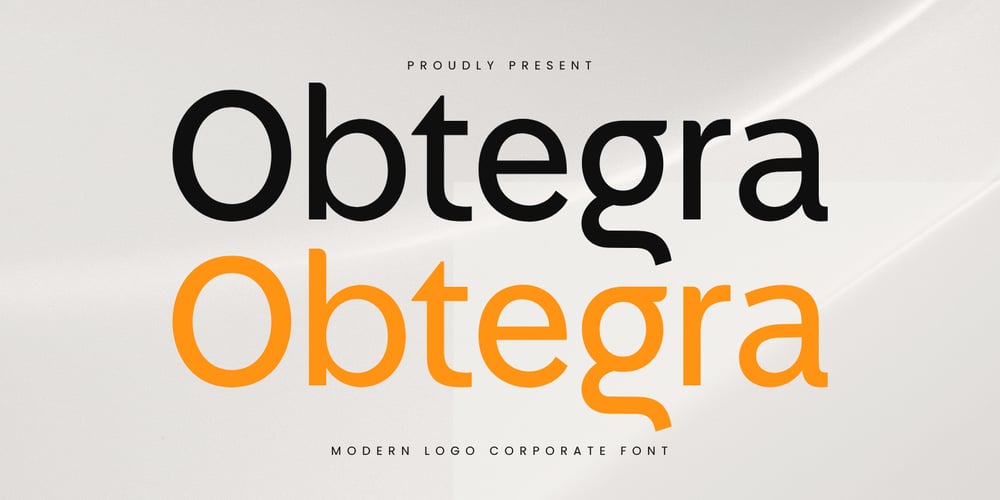
Obtegra
Obtegra font
Obtegra Font Family was designed by Zamroni Hamzah and published by Sensatype Studio. Obtegra contains 2 styles and family package options. Introducing Obtegra, a font crafted to bring a touch of modern elegance to corporate branding. With its sleek and professional design, Obtegra is perfect for creating logos and branding materials that exude sophistication and contemporary style.The Story Behind Obtegra:Obtegra was inspired by the vibrant and cosmopolitan city it’s named after. Known for its blend of old-world charm and modern innovation, Obtegra captures the essence of a dynamic business environment. Each character in Obtegra is meticulously designed to reflect a balance of tradition and modernity, making it an ideal choice for corporate identities that want to stand out while maintaining a professional appearance.Obtegra Font Features: Available in 2 Styles: To Make the design perfect, we prepared for Regular and Italic Version. Modern Design: Sleek and minimalist, perfect for corporate and business use. Professional Aesthetics: Clean lines and elegant curves that convey sophistication. Versatile Usage: Ideal for logos, business cards, corporate presentations, and branding materials. Multiple Formats: Available in formats for all your design needs. High Legibility: Clear and sharp, ensuring your message is communicated effectively. Elegant Simplicity: Combines modern style with a professional look. Inspirational Previews: Includes sample designs to spark your creativity. Perfect For: Corporate Branding: Create sleek and memorable logos for businesses and companies. Business Materials: Design elegant business cards, letterheads, and office stationery. Presentations: Develop polished and modern presentations for corporate meetings and pitches. Marketing Materials: Enhance brochures, flyers, and advertisements with a touch of elegance. With Obtegra, your corporate designs will achieve a new level of professionalism and style. Whether you’re working on branding, marketing materials, or business presentations, Obtegra provides the perfect blend of modern design and corporate sophistication. Elevate your brand with Obtegra and make a lasting impression in the business world.